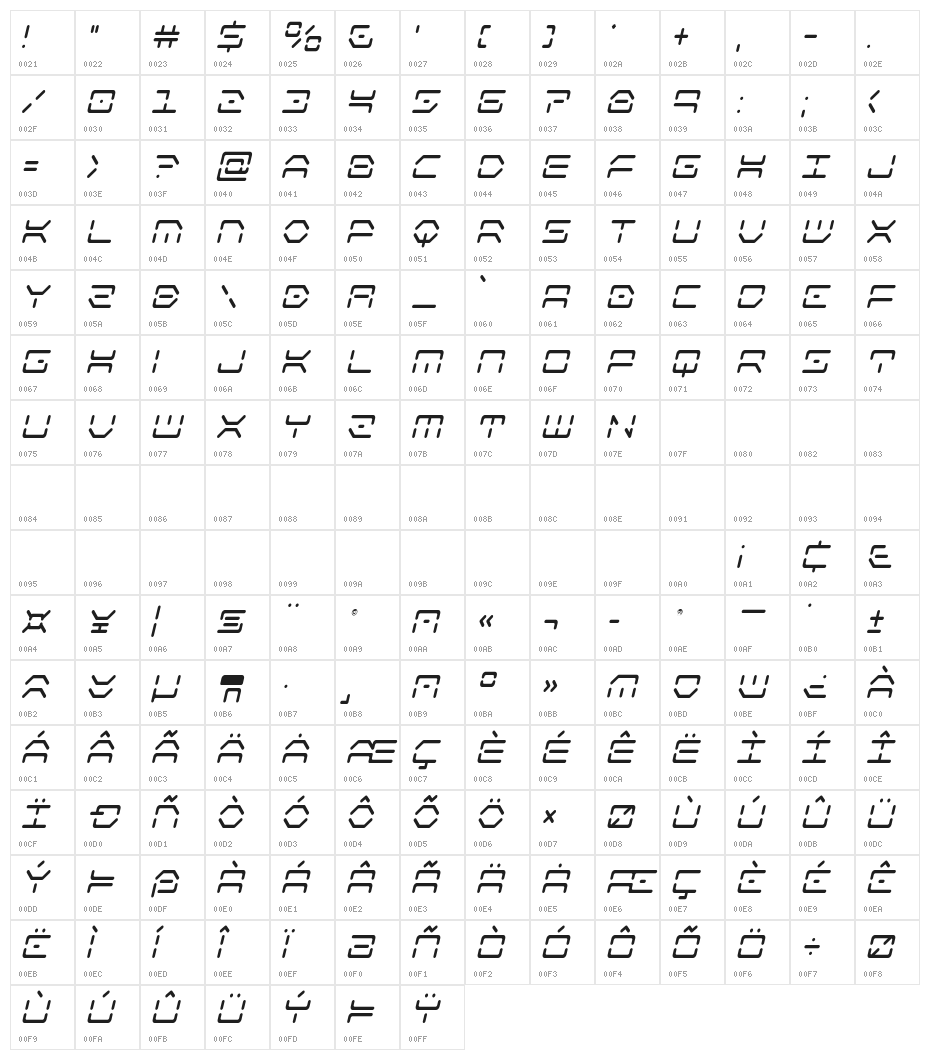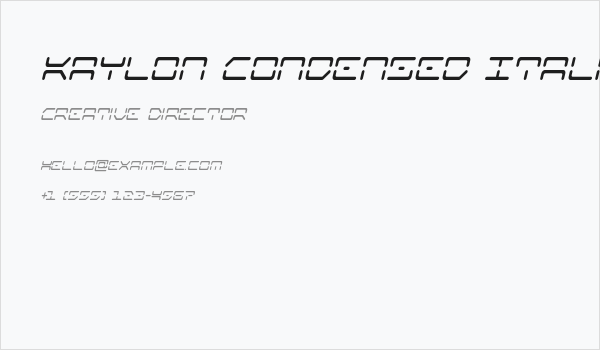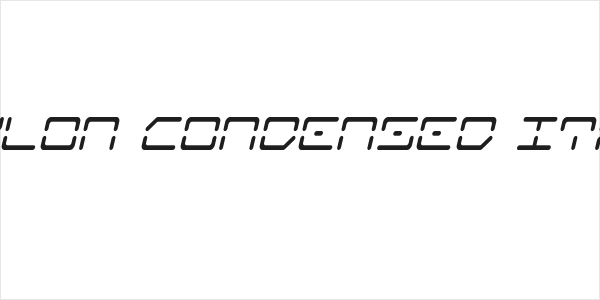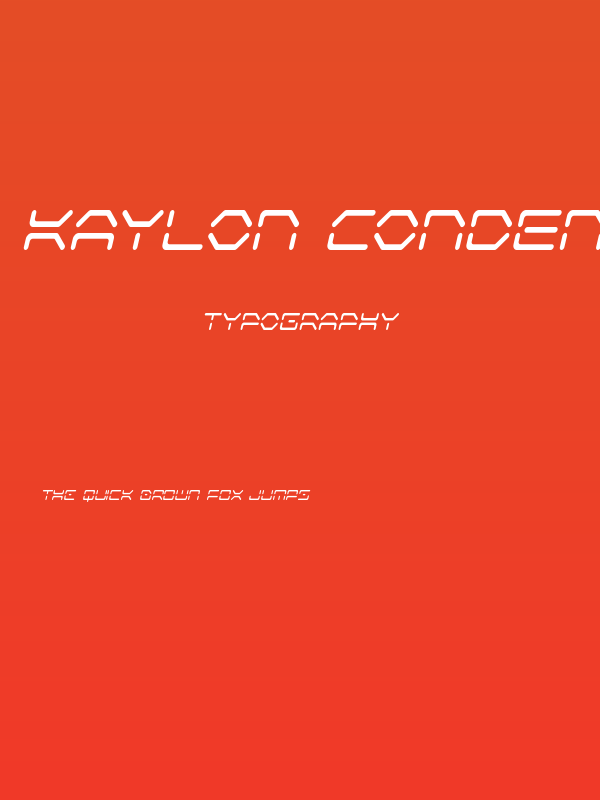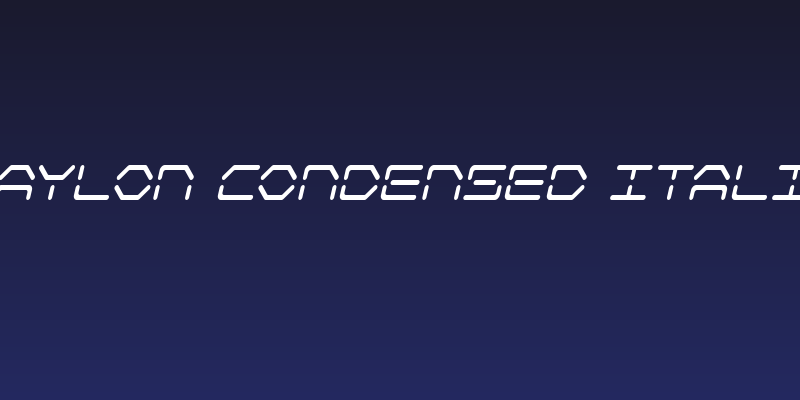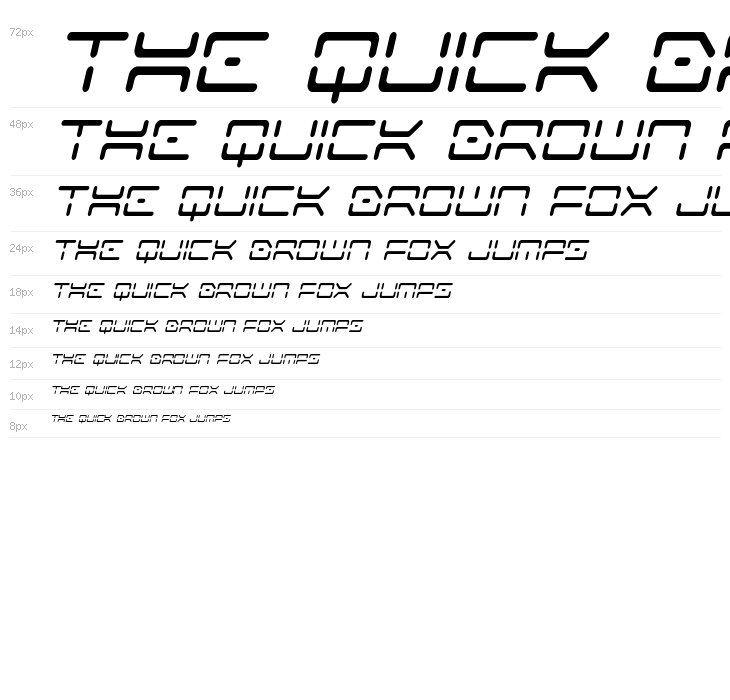
Kaylon Condensed Italic Font
Kaylon Condensed Italic Description
This font features a futuristic and geometric design, characterized by its condensed and italicized form. The letters are composed of clean, angular lines with rounded corners, giving it a sleek and modern appearance. The consistent stroke width and minimalistic style contribute to its high-tech aesthetic. The uppercase and lowercase letters maintain a uniform height, enhancing the condensed look. Numbers and special characters follow the same design principles, ensuring a cohesive visual identity across all glyphs. This font's unique style makes it suitable for projects that require a modern and innovative touch.
| Use Case | Headlines, Logos, Digital Interfaces |
| Proposed Projects | Ideal for technology branding, sci-fi movie posters, video game titles, and modern digital interfaces. |